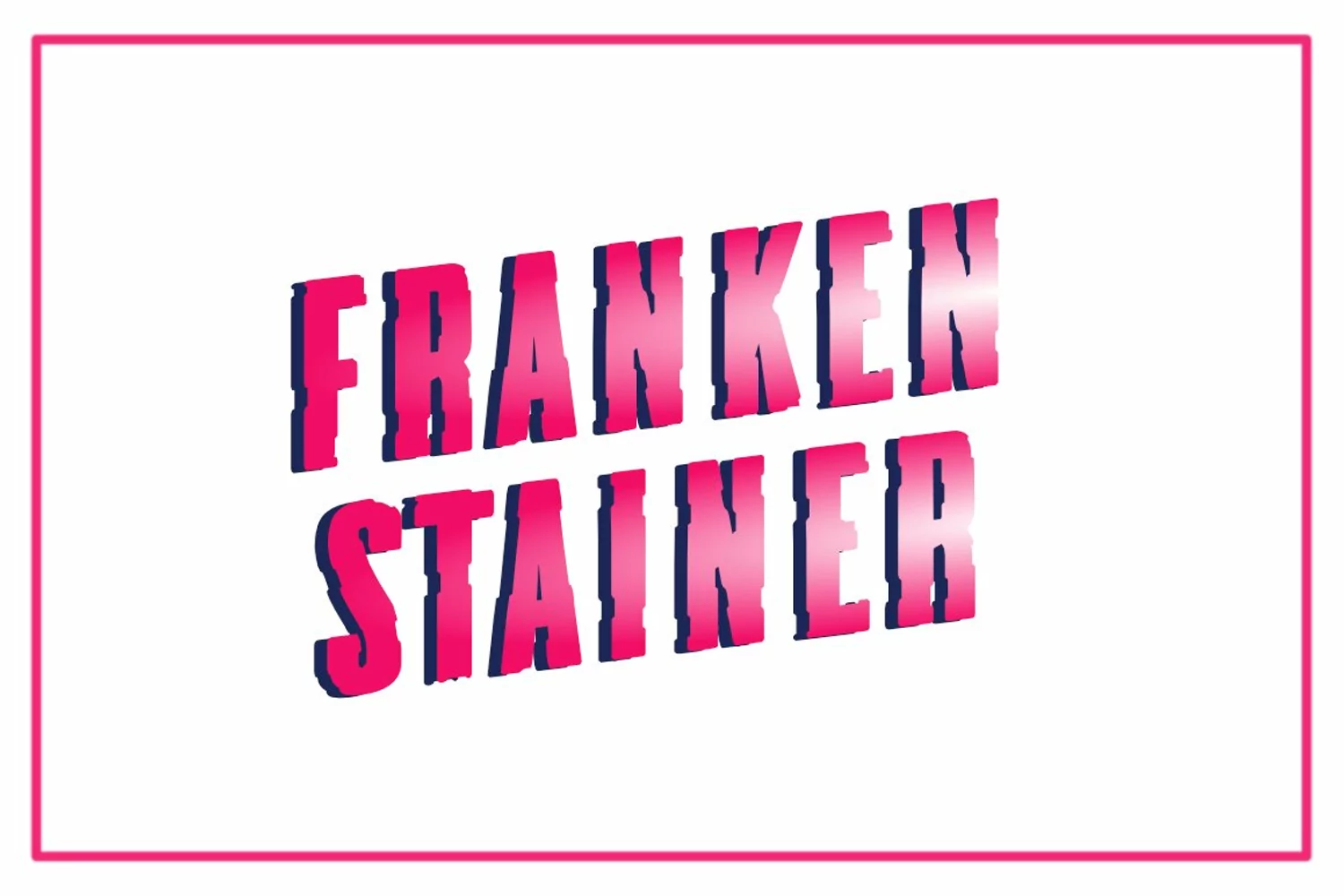
Frankenstainer - A Raw Display Typeface
The Frankenstainer is a raw, bold, mysterious, unorthodox, call it what you want typeface. It’s authentic and it’s also unique. It was created with passion. Its main purpose is to grab the attention of the viewers. Unleash the beast within!